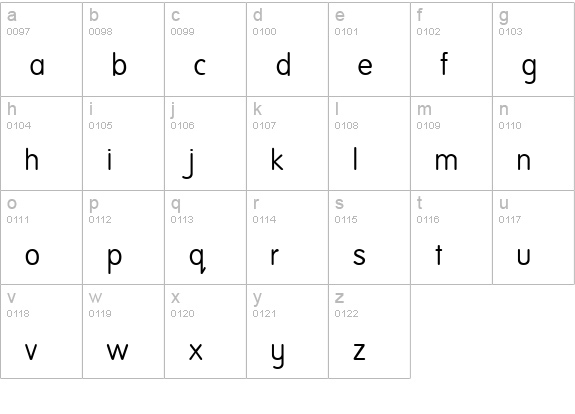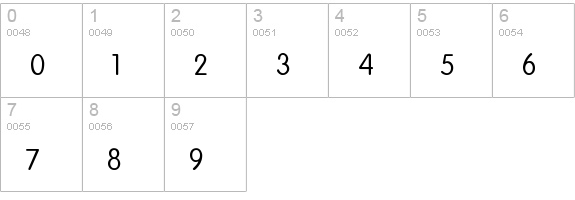
National First Font Font Details
National First Font is a versatile and modern typeface that combines elegance with readability. This font is perfect for a wide range of design projects, from branding to editorial design. With its clean lines and balanced proportions, National First Font exudes sophistication and professionalism. Whether you are creating a logo, a poster, or a website, this font will surely make your designs stand out. The best part? National First Font is available for free download at FontsMarket.com. So, you can easily access this high-quality font without any cost. Take advantage of this opportunity to enhance your design projects with the sleek and stylish National First Font. Download it today and elevate your typography game to the next level.